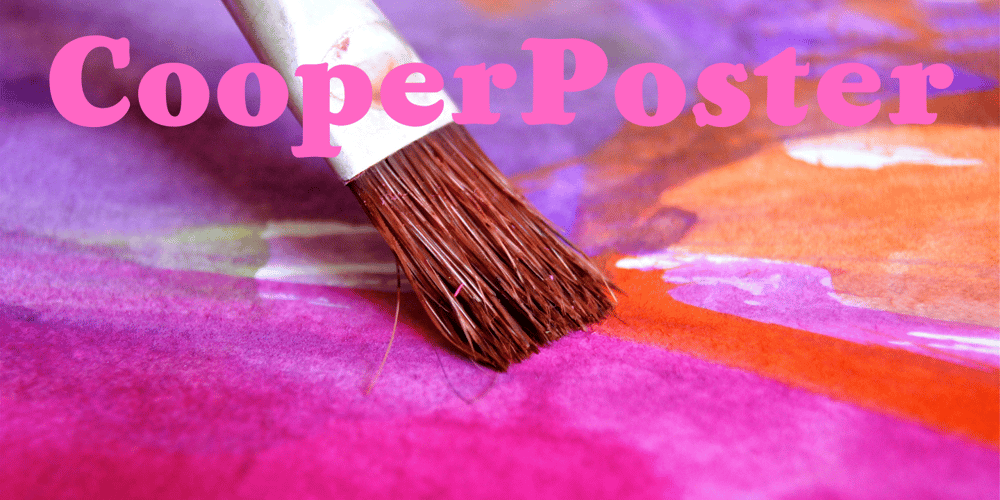
Cooper Poster Font Family was designed by Oswald Bruce Cooper and published by GroupType. Cooper Poster contains 1 styles and family package options. Cooper Poster was inspired by showcard lettering samples featured in the book, Commercial Art Of Show Card Lettering, published in 1945. Although named “”Western””, the design was modeled after Ozwald Cooper’s 1921 original Cooper Black.